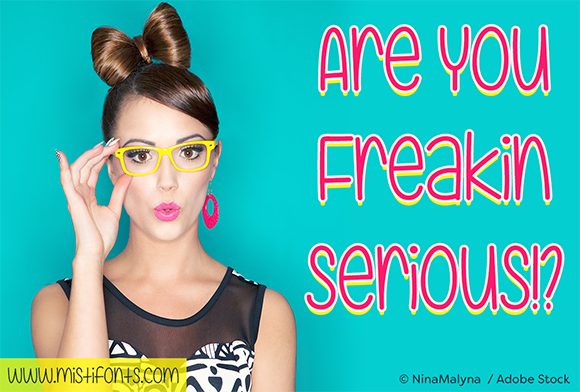
HomeScript FontsAre You Freakin Serious Font Script Fonts Are You Freakin Serious Font FacebookXPinterestWhatsApp About Are You Freakin Serious Font Are You Freakin Serious is a cute, handwritten font that is perfect for your craft and design projects! DOWNLOAD NOW People also explored Deschamber Font Santuy Font Dinamica Font Copper Harbor Script Font Sweet Venom Font Nadella Font Jody Font Anboug – Bold Handwritten Font Ghosh Riderez Font 578 0 TagsAre You Freakin Serious Font Previous articleMarch into Spring FontNext articleAutumn Breeze Font LEAVE A REPLY Cancel reply Comment: Please enter your comment! Name:* Please enter your name here Email:* You have entered an incorrect email address! Please enter your email address here Website: Save my name, email, and website in this browser for the next time I comment. Personal Use Free Beloved Script Personal Use Free Read more about this font Omellia Personal Use Free Read more about this font Nuku Nuku Personal Use Free Read more about this font Hollster Personal Use Free Read more about this font BLOG Exploring Font Trends Shaping Communication in the Digital Era Fonts, like all design elements, are subject to trends. They play a crucial role in communicating a brand's personality,... Best Fonts for YouTube Videos: Make Your Thumbnails Stand Out Free vs Paid Fonts: Why Investing in Premium Fonts Is Worth It Elegant Wedding Invitation Fonts – Handwritten & Script Fonts